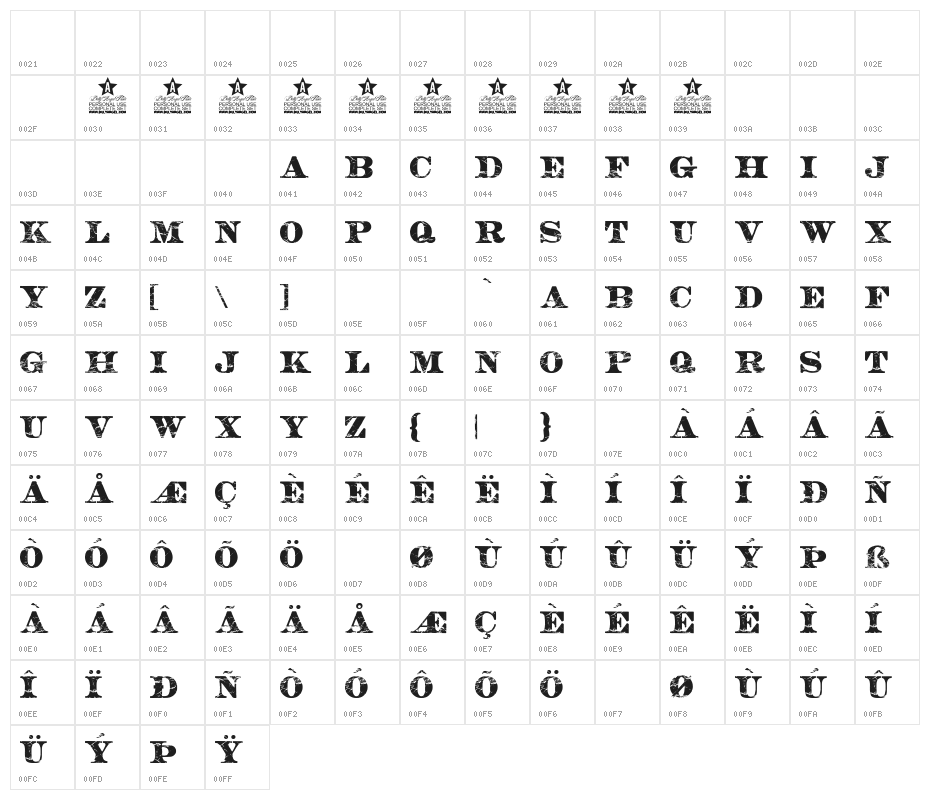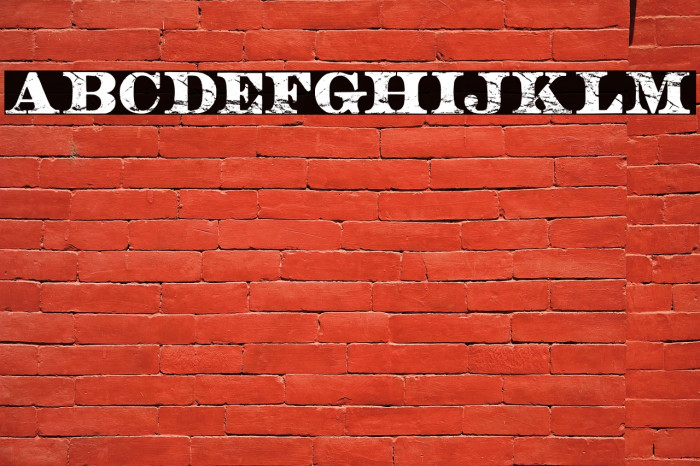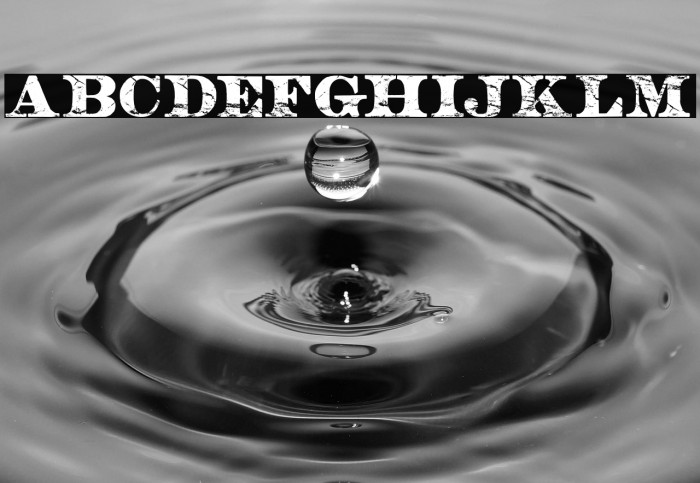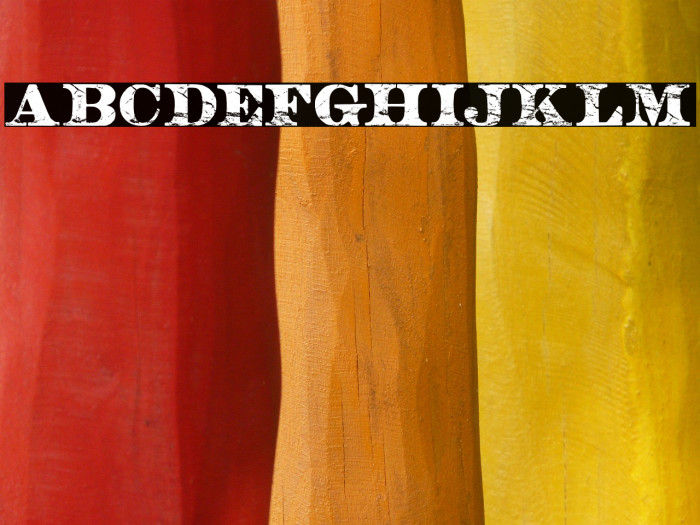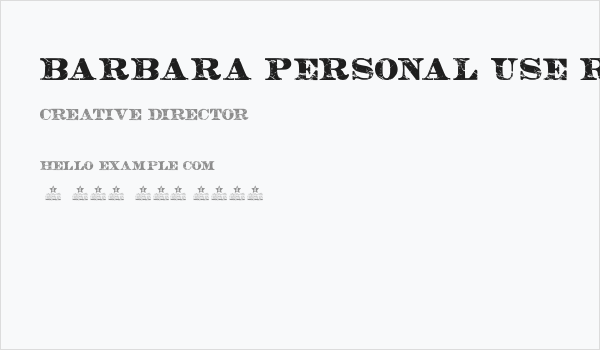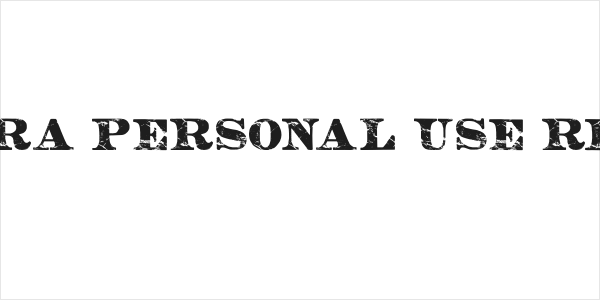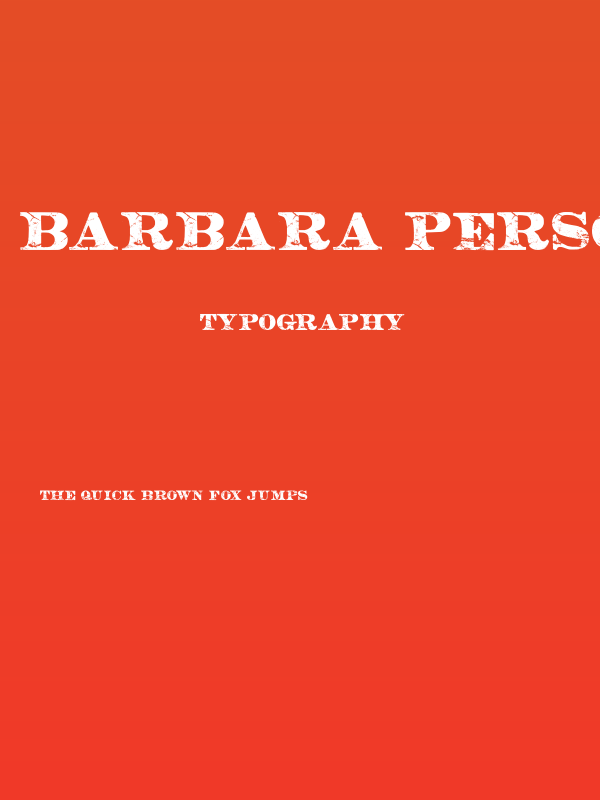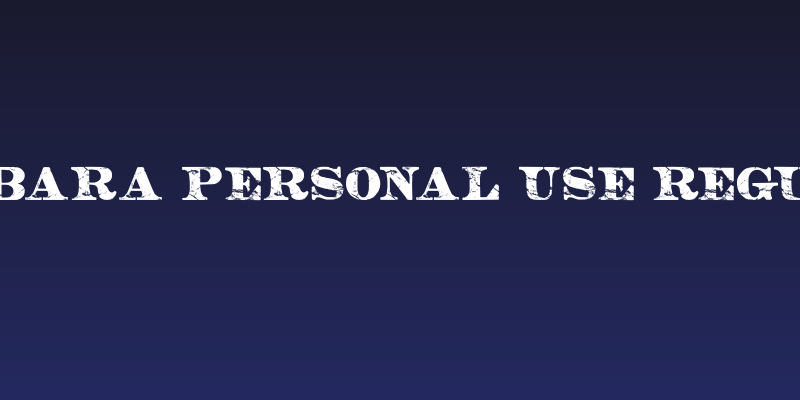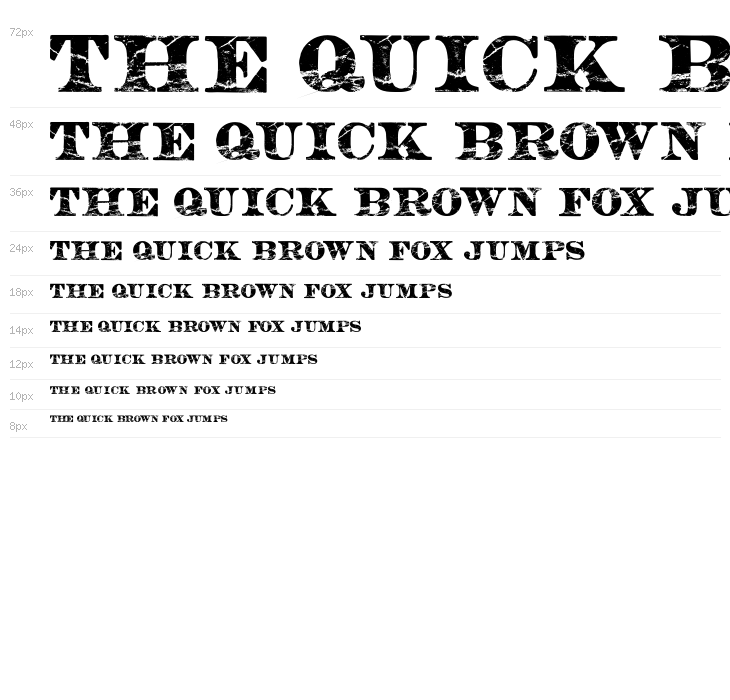
BARBARA PERSONAL USE Regular Font
BARBARA PERSONAL USE Regular Description
This font features a bold, distressed style with a vintage and rugged appearance. The characters are heavily textured, giving them a worn and weathered look, reminiscent of old signage or typewriter prints. Each letter is distinct with rough edges and varying levels of distress, adding to its unique character. The uppercase letters are prominent and impactful, making them suitable for attention-grabbing headlines or titles. The font's overall aesthetic is both bold and artistic, making it ideal for projects that require a strong visual statement.
| Proposed Projects | Ideal for vintage posters, album covers, branding for rustic or retro-themed businesses, and any project requiring a bold, artistic touch. |